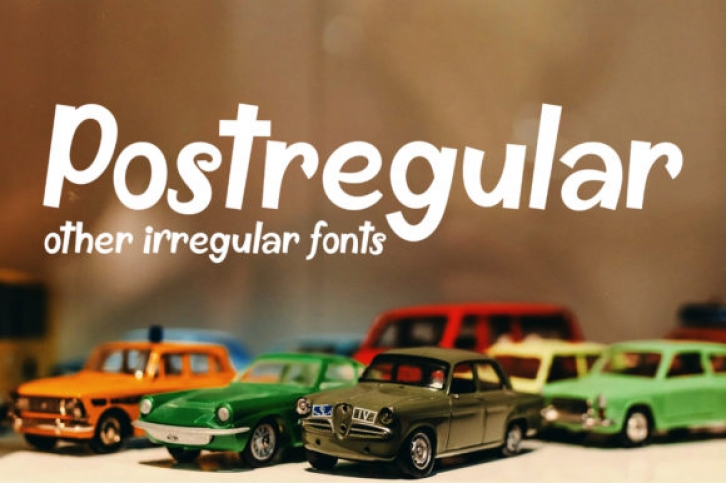
Postregular is an exquisite handwritten font, masterfully designed to become a true favorite. It features a classy style that will take your designs to the next level!